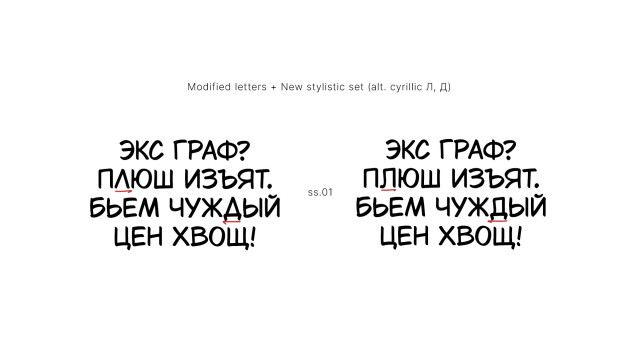
Chill Side Font
Chill Side Font is a chunky, comic, and cartoon display font. With its neat and joyful personality, this font will enhance any project you wish to create!
Modification of TroubleSide font designed by LKD